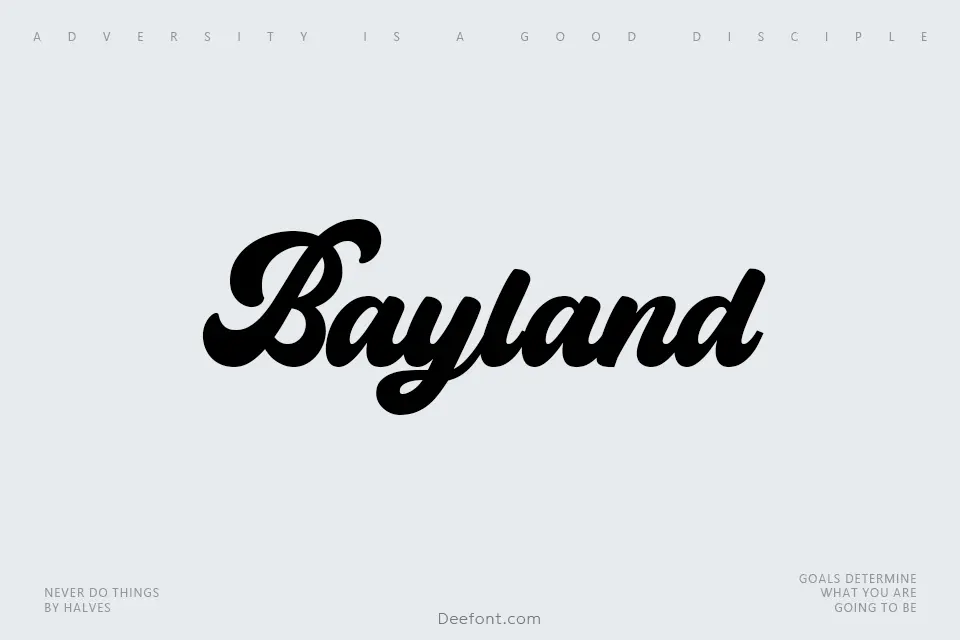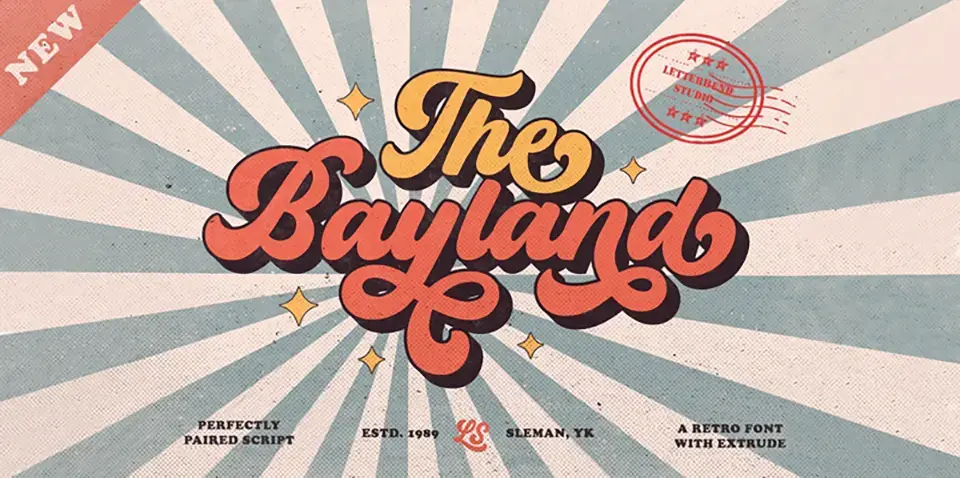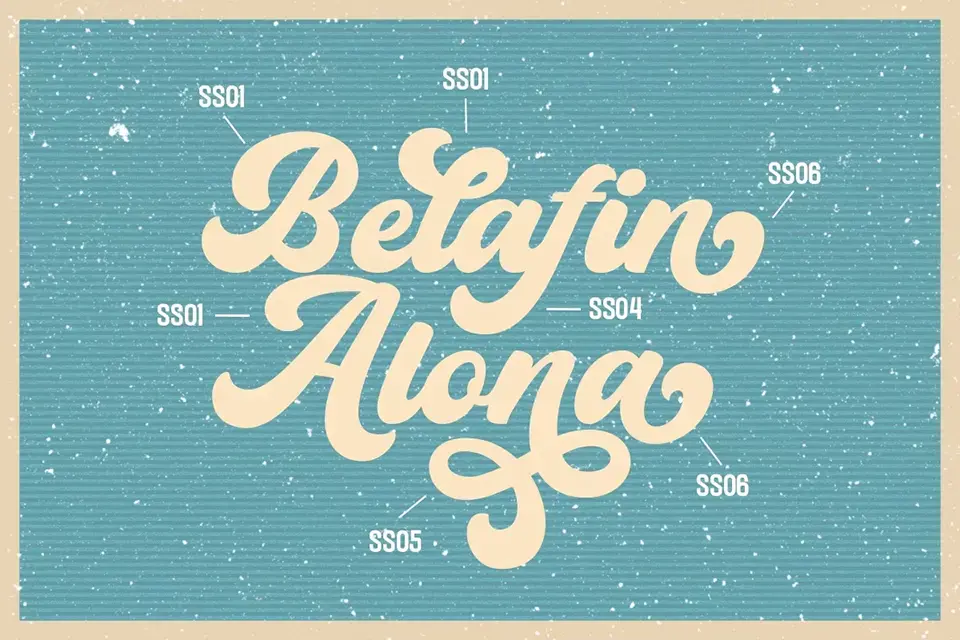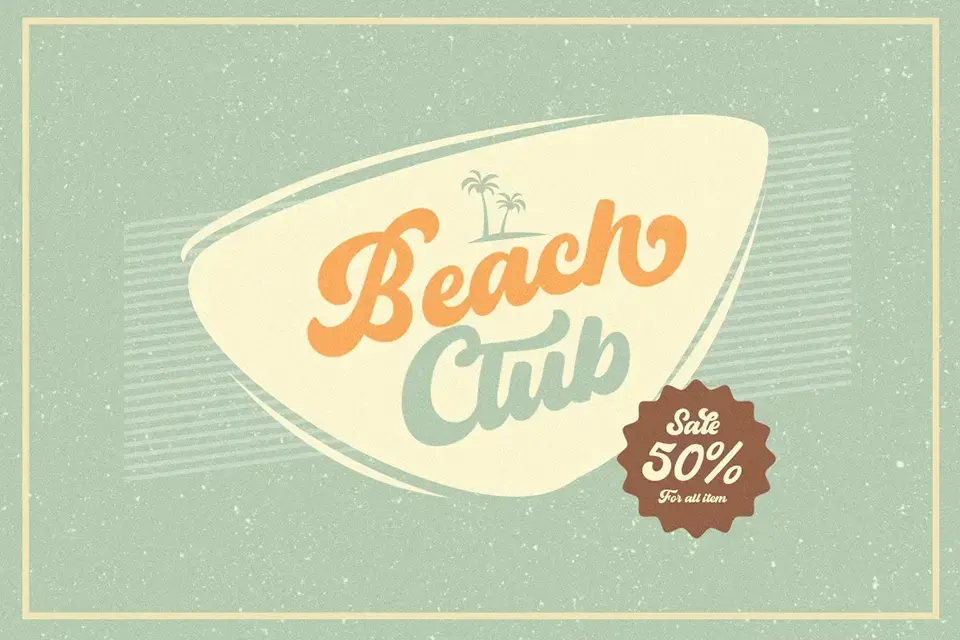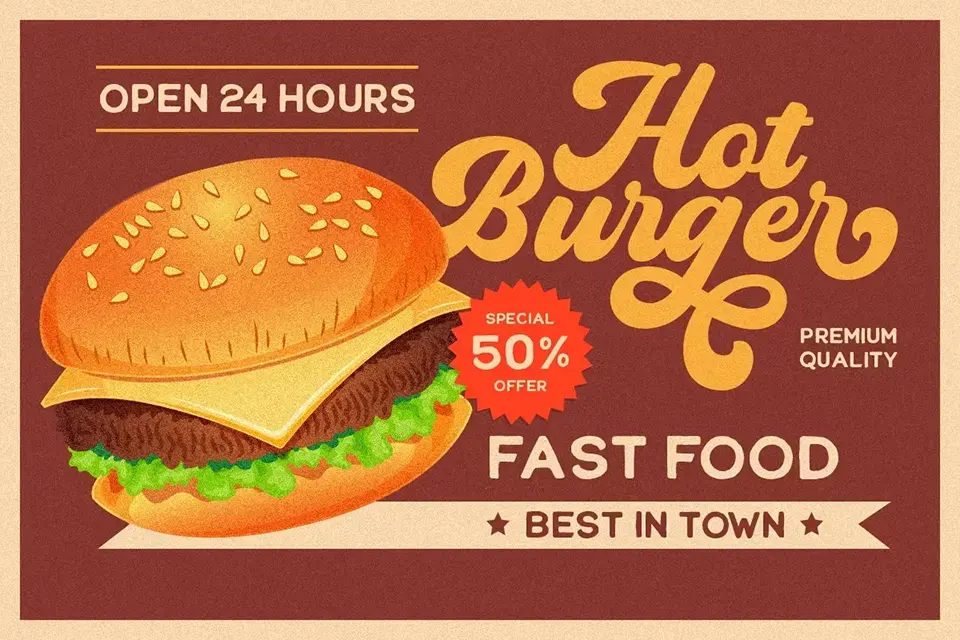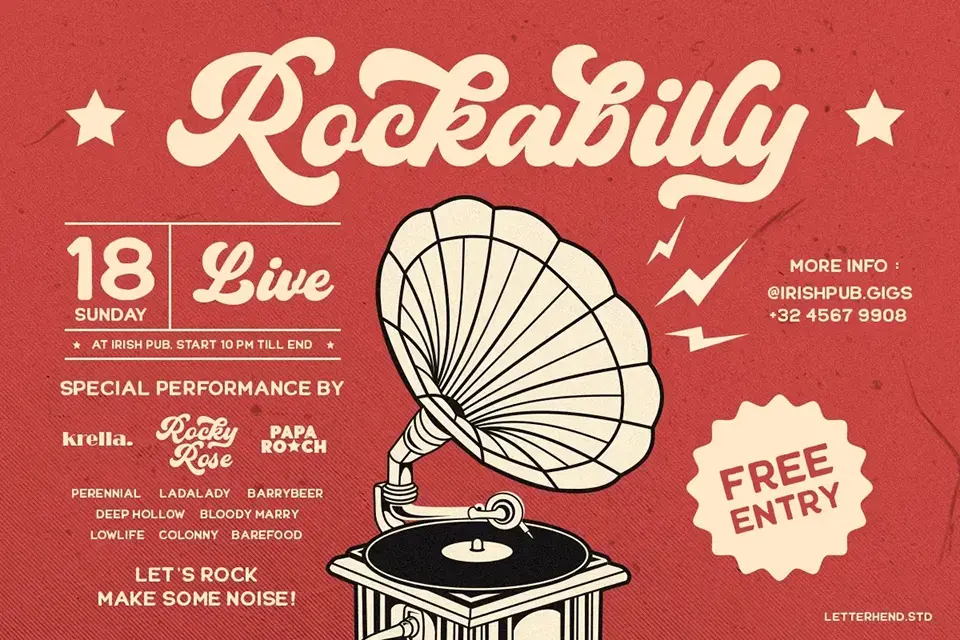
Bayland Font
The Bayland Script Font is a bold, retro-inspired script typeface with smooth curves, chunky letterforms, and a distinctly 60s vibe. Its bottom-heavy strokes and flowing connections create a playful yet confident rhythm that stands out in display settings. Ideal for logos, posters, signage, product packaging, apparel graphics, and event titles, this script font instantly adds a nostalgic, handcrafted feel. Use it when you want eye-catching vintage headlines that still feel modern, friendly, and highly readable in branding and promotional design.